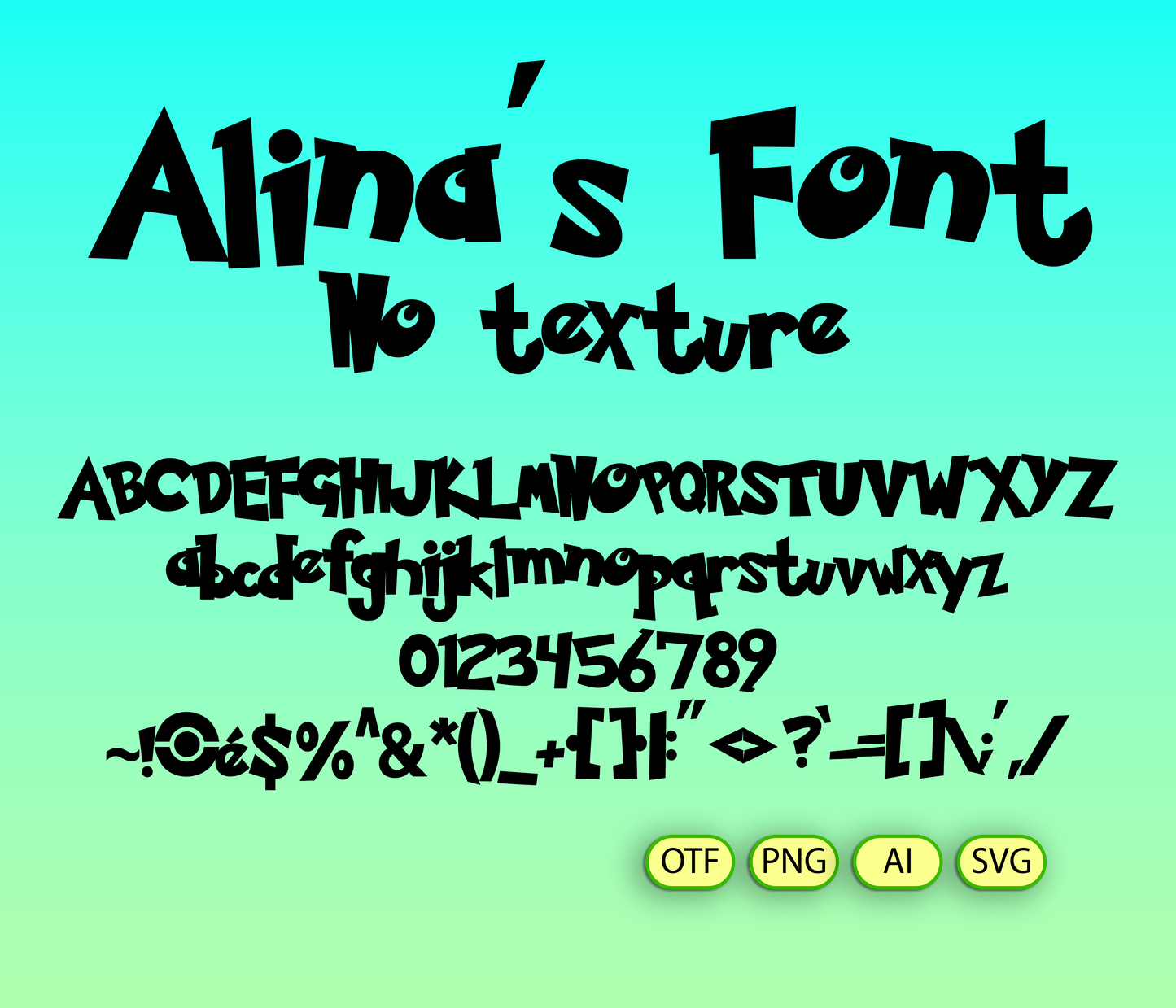
Monster Collector Adventure Font
Monster Collector Adventure Journey Style
Embark on epic creature-catching quests and magical monster companionship with our Monster Collector Adventure Journey font, capturing the essence of fantastical beast exploration and friendship-filled adventures. Perfect for creature adventure creators, monster world designers, collection game storytellers, and creative professionals, this font delivers the adventurously spirited yet friendship-focused, magically creature-filled atmosphere of monster collecting tales to your projects. Craft adventure-packed invitations, creature collection merchandise, or digital content with the energetically determined, magically bonded energy of monster companion stories.
Our Monster Collector Adventure Journey font features bold, adventure-inspired letterforms and playfully energetic characters reflecting the excitingly adventurous yet heartwarming aesthetic of creature collecting scenarios. Ideal for:
- Creature Adventure Events: Design exciting invites, posters, and banners for monster-themed parties, collection experiences, and creature adventure gatherings
- Fantasy Collection Design: Perfect for book covers, adventure promotions, and creature-themed accessories that capture monster friendship essence
- Digital Media: Enhance websites, blogs, and social media with energetic headers and graphics that express adventurous spirit and creature bonding
- Entertainment Content: Add authentic character to creature adventure materials, monster collection designs, and promotional materials for friendship-filled events
- Personal Projects: Bring adventurous appeal to scrapbooking, DIY crafts, and home decor inspired by the aesthetics of monster collecting adventures